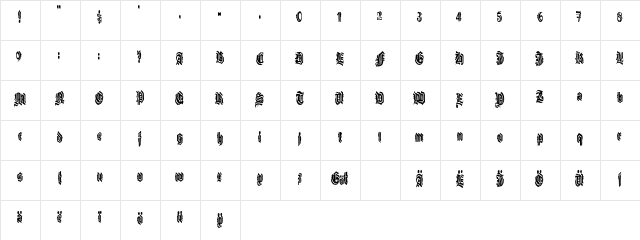
G Regular
Design Context for G Typeface
G is a composed and adaptable typeface that performs quietly and consistently across a wide range of design contexts.